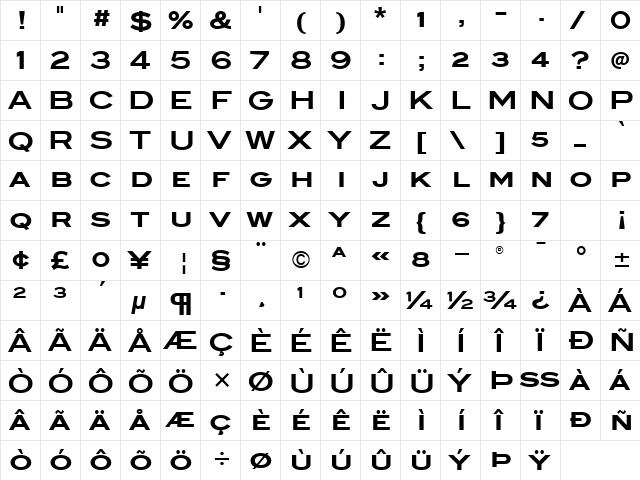
BlairITC TT Bold
Design Context for BlairITC TT Typeface
BlairITC TT offers clean, dependable letterforms without strong stylistic allegiance, making it a practical choice for designers who need flexibility. Its bold stroke weight gives it real presence on the page.